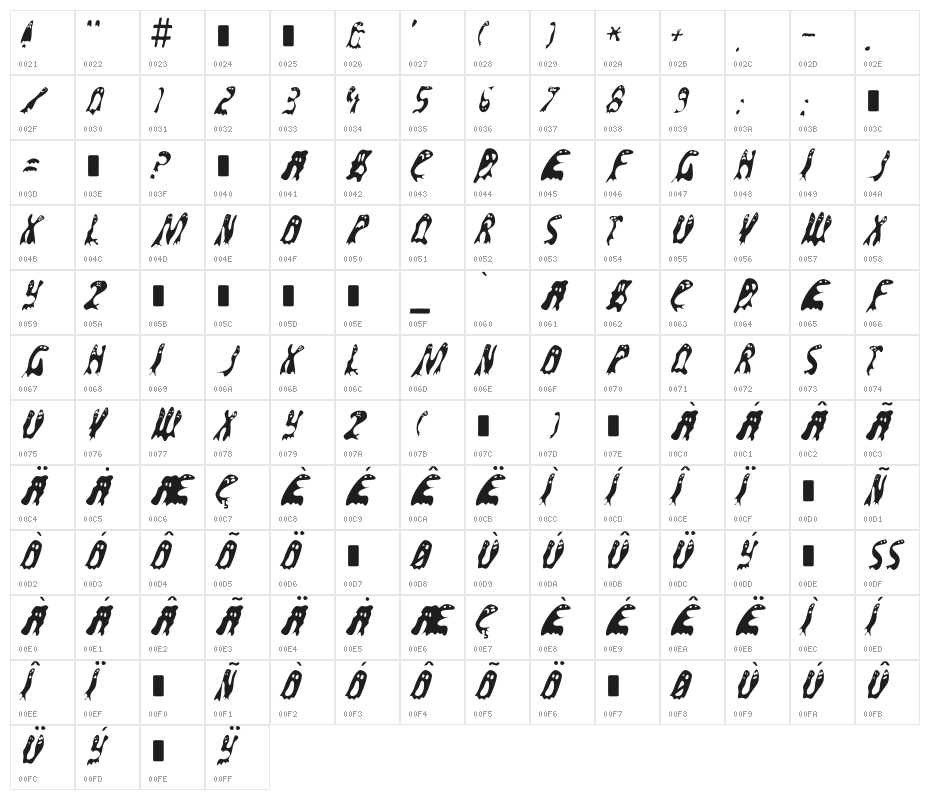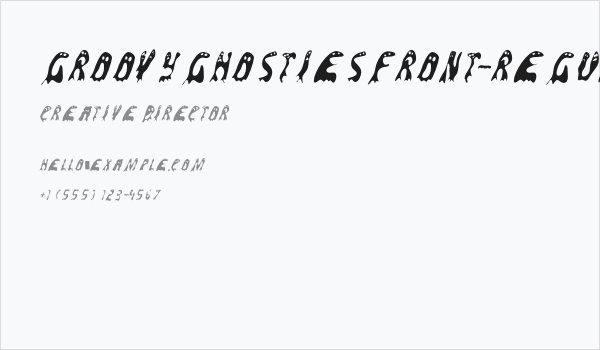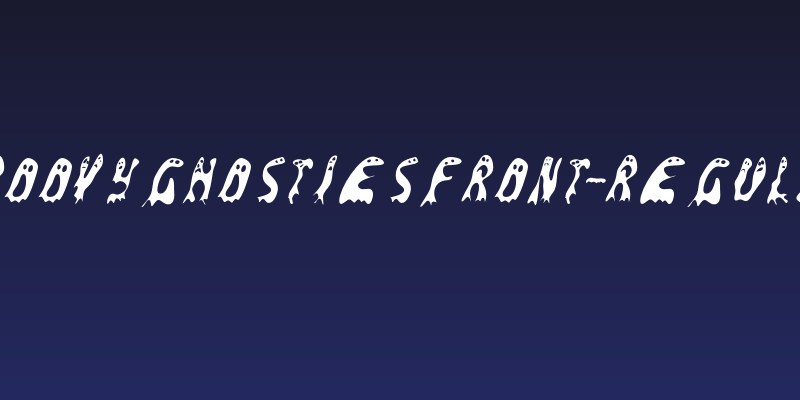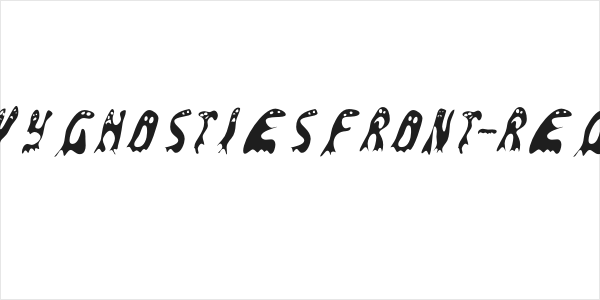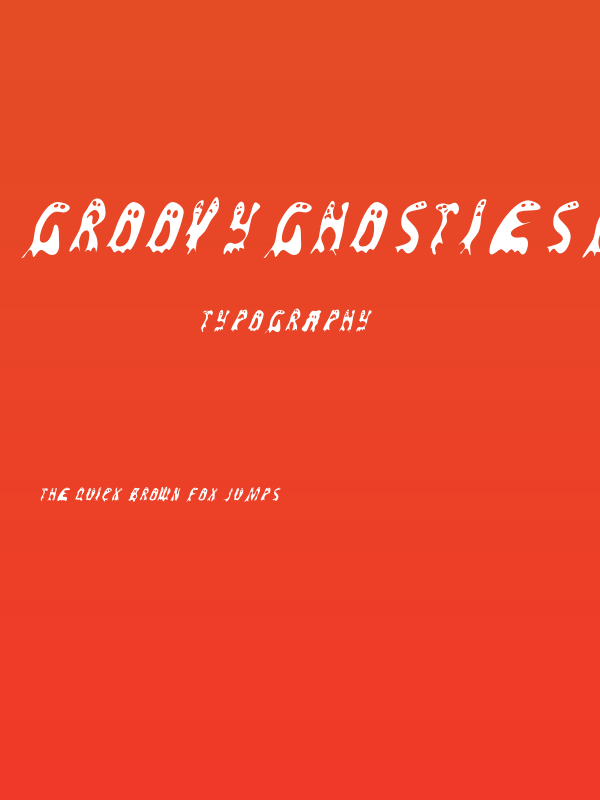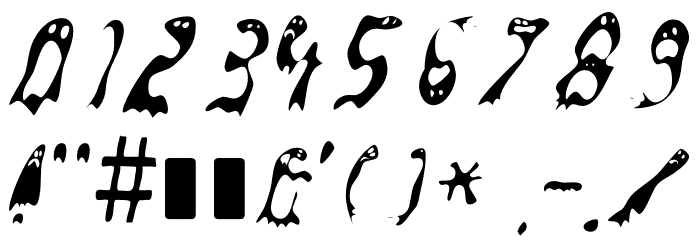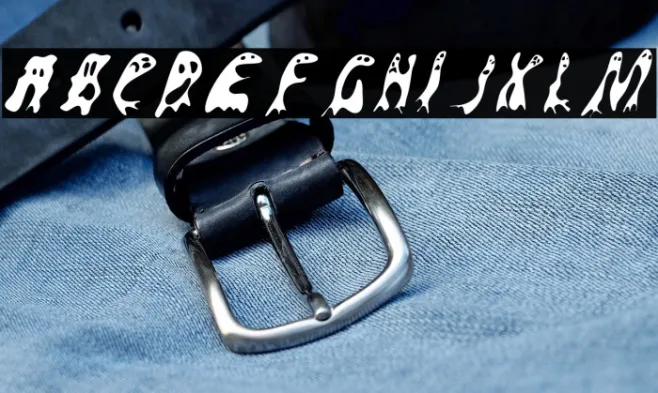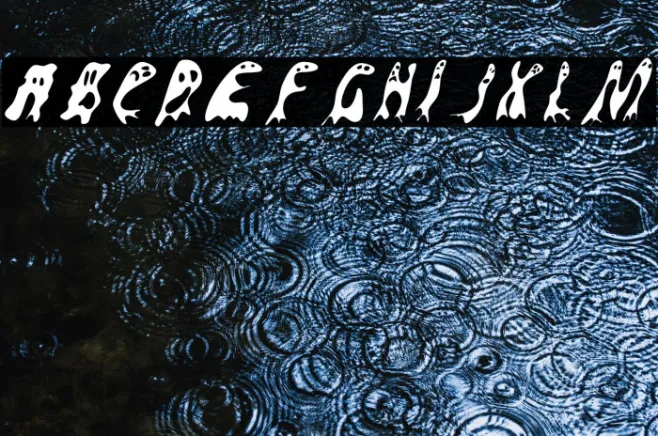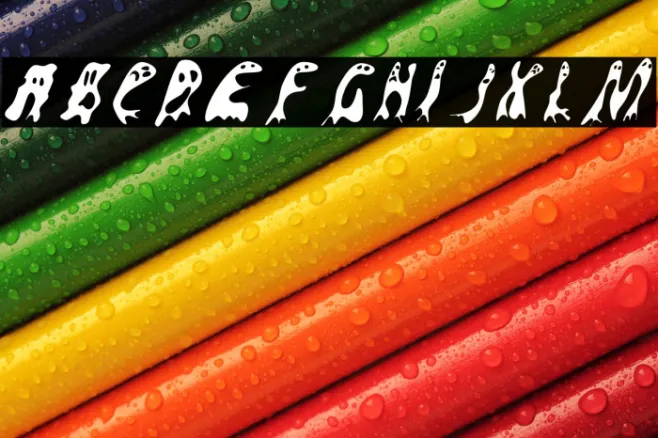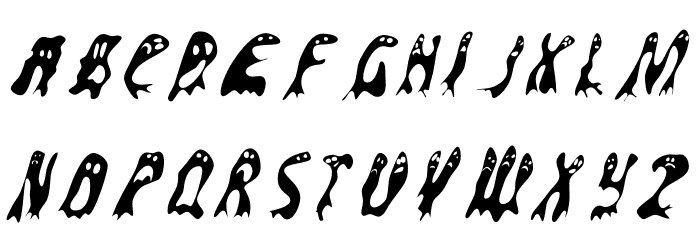
GroovyGhostiesFront-Regular Font
GroovyGhostiesFront-Regular Description
This playful and whimsical font features characters that resemble ghostly figures, each with unique and quirky details. The letters are designed with a flowing, organic shape that gives them a lively and animated appearance. The font includes both uppercase and lowercase letters, numbers, and a selection of special characters, all maintaining the ghostly theme. The bold strokes and creative design make it ideal for projects that require a fun and spooky touch. The overall style is decorative and thematic, perfect for Halloween or other playful, themed events.
| Use Case | Headlines, Logos, Themed Events |
| Proposed Projects | Ideal for Halloween-themed invitations, party decorations, children's books, and playful branding projects. |